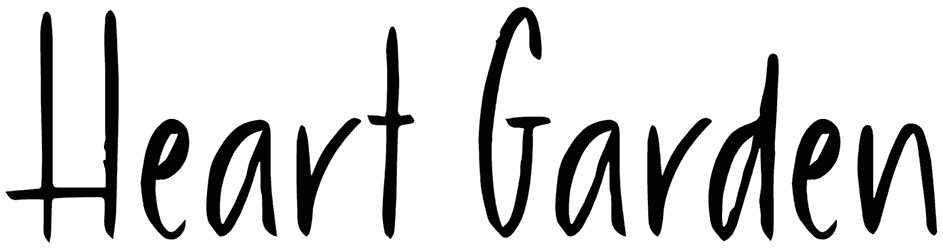
Heart Garden Font
If you like to have a tasty and minimal design, choosing a casual manuscript style would be an apt illustration. As a handwritten font, Heart Garden consists of natural lettering that can reflect an adorable vibe. This s…
If you like to have a tasty and minimal design, choosing a casual manuscript style would be an apt illustration. As a handwritten font, Heart Garden consists of natural lettering that can reflect an adorable vibe. This script font can be fit for lots of creative items, namely postcards, planners, mugs, branding, or similar.